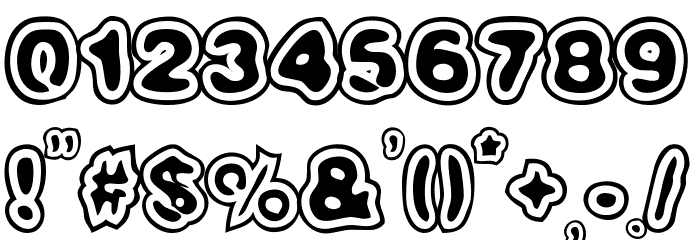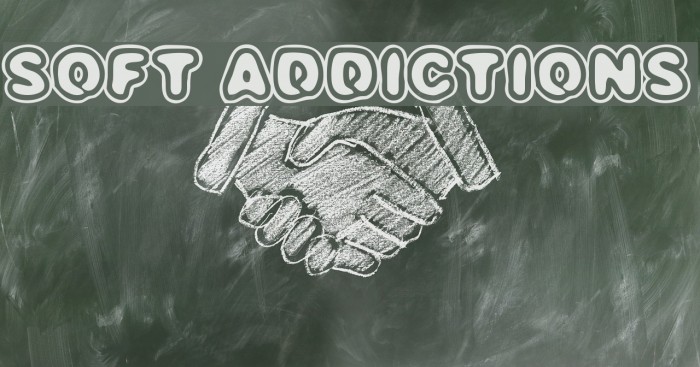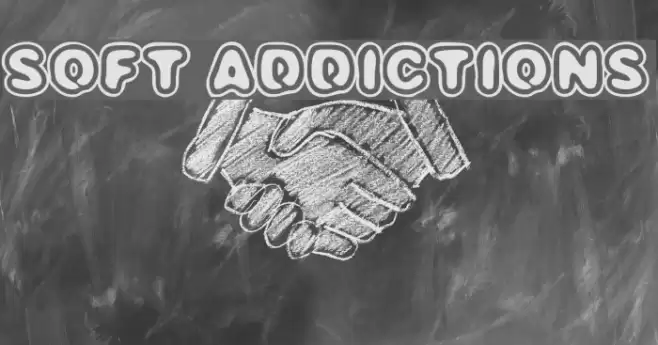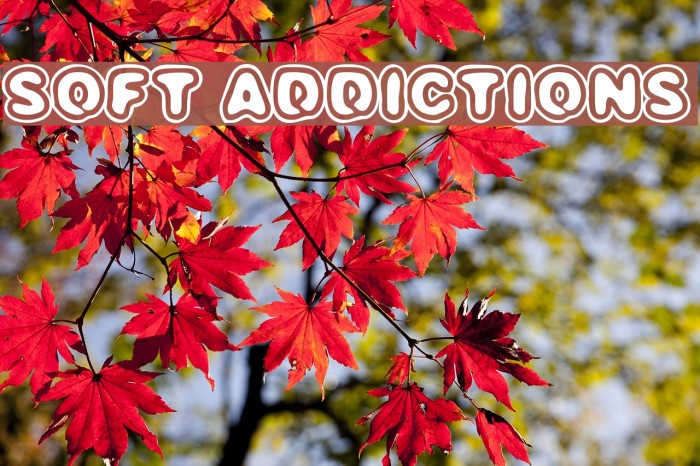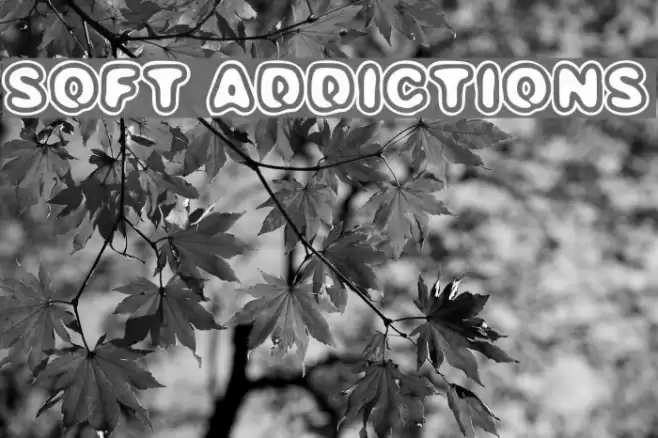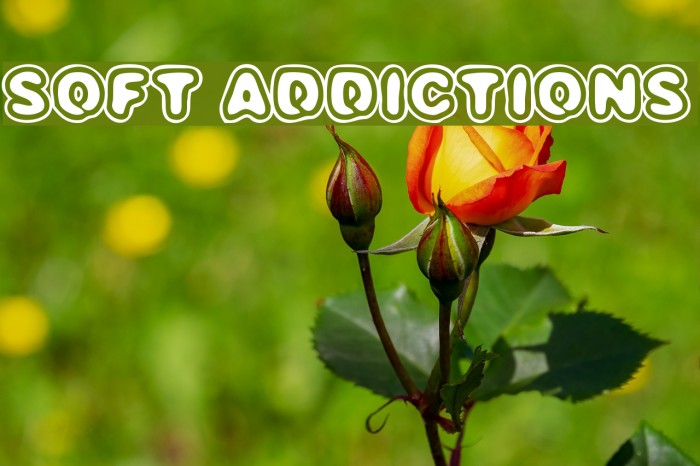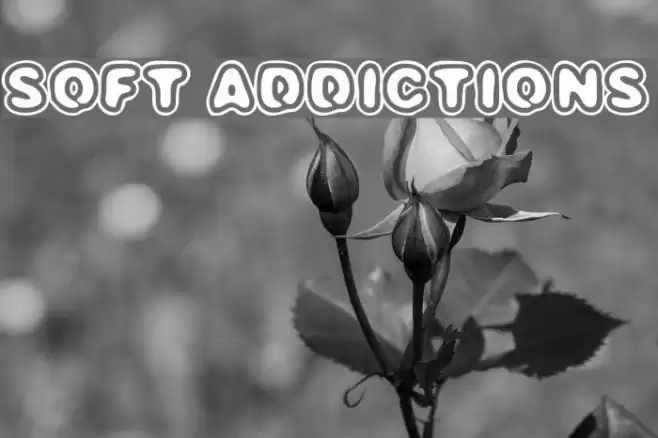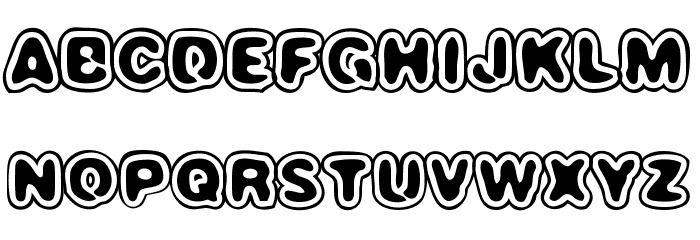
SOFT ADDICTIONS Font
SOFT ADDICTIONS Description
This playful and bold font features thick, rounded letters with a distinctive bubble-like outline. The characters are uniformly bold, creating a sense of fun and approachability. The font's design is consistent across uppercase, lowercase, numbers, and special characters, maintaining a cohesive look. The bold outlines add a layer of depth, making each character stand out prominently. This style is reminiscent of retro or comic book aesthetics, offering a nostalgic yet modern appeal. The font's unique style makes it ideal for projects that require a touch of whimsy and creativity.
| Overall Style | Playful, Retro, Comic |
| Proposed Projects | Ideal for children's books, comic strips, playful branding, party invitations, and posters. |